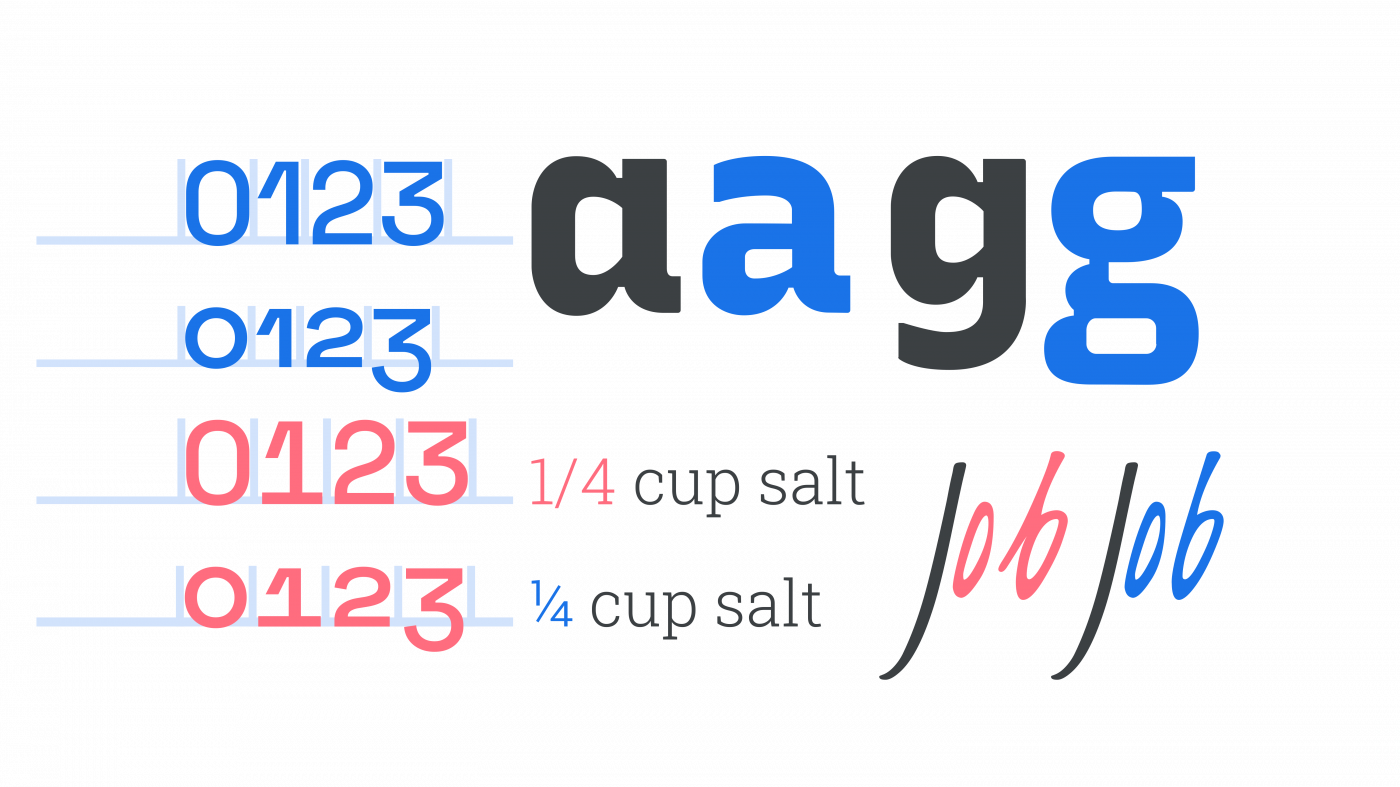
This was the reference I based this on -- more specifically, the lower-case a (the one on the left). I think this font came out alright (I hope).
EDIT: I forgot to add the source, it's actually from the official Google Fonts preview thingy from the bottom of the page (in the Choosing Type section).
this is actually pretty good!